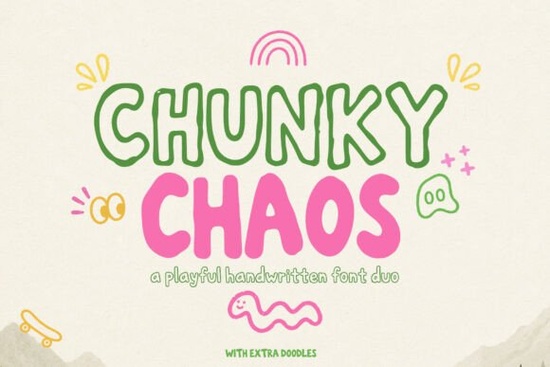
Looking for a font that brings energy and personality to your designs? Chunky Chaos Font is a bold, hand-drawn typeface duo perfect for projects where fun and creativity matter. It’s not just a font it’s a mood booster on the page. With its thick, rounded letters and playful shadow companion, it stands out in both digital and print formats.
What makes Chunky Chaos Font stand out?
The real charm of this font lies in how it feels handmade. Each character has slight imperfections like ink smudges or uneven strokes that give it warmth and authenticity. It’s ideal when you want your design to feel personal, energetic, and full of life.
Beyond the main text, Chunky Chaos includes a set of whimsical doodles: stars, hearts, swirls, and other sketch-style elements. These aren’t just decorative they’re tools. Use them as accents, borders, or even standalone graphics in stickers, greeting cards, or social media posts.
Why designers love this font duo
- Easy to use: The font works well at different sizes, from large headlines to smaller body text.
- Great for branding: Perfect for small businesses, crafters, or anyone building a fun, approachable brand identity.
- Print and digital ready: Whether you're making T-shirts, posters, or website headers, it holds up beautifully.
- Customizable: Pair it with clean sans-serif fonts to balance the chaos and create visual harmony.
If you’ve tried other handwritten fonts and found them too rigid or uniform, Chunky Chaos offers a refreshing alternative. It’s designed to feel spontaneous not forced.
How can I use Chunky Chaos in my projects?
Try using it for:
- Party invitations and event flyers
- Branding for cafes, boutiques, or kids’ products
- Instagram stories, Pinterest pins, and TikTok thumbnails
- Print-on-demand designs like mugs, tote bags, and notebooks
- Handmade greeting cards and scrapbooking
It’s especially strong when paired with bright colors or textured backgrounds. The contrast between the bold lettering and soft textures adds depth and interest.
Where does it fit in my font library?
If you already have fonts like Charlien, Sunny, or Whipped Honey Family, Chunky Chaos fits right in. While each has its own vibe, they all share a friendly, expressive tone. Think of it as the bolder, more energetic cousin in the family.
For those exploring unique script fonts, Special might offer a similar edge but with a slightly different style. You’ll find that Chunky Chaos leans more into spontaneity and motion, while others focus on elegance or minimalism.
Final thoughts for creatives
Not every project needs a serious font. Sometimes, a little playful chaos is exactly what the design needs. Chunky Chaos gives you that freedom without sacrificing clarity or professionalism.
Whether you're a hobbyist, a small business owner, or a designer working on client work, this font duo helps you express joy through typography. It’s not about perfection. It’s about feeling.
Once you start using it, you’ll likely find yourself reaching for Chunky Chaos again and again especially when you want your work to feel alive, unfiltered, and full of heart.